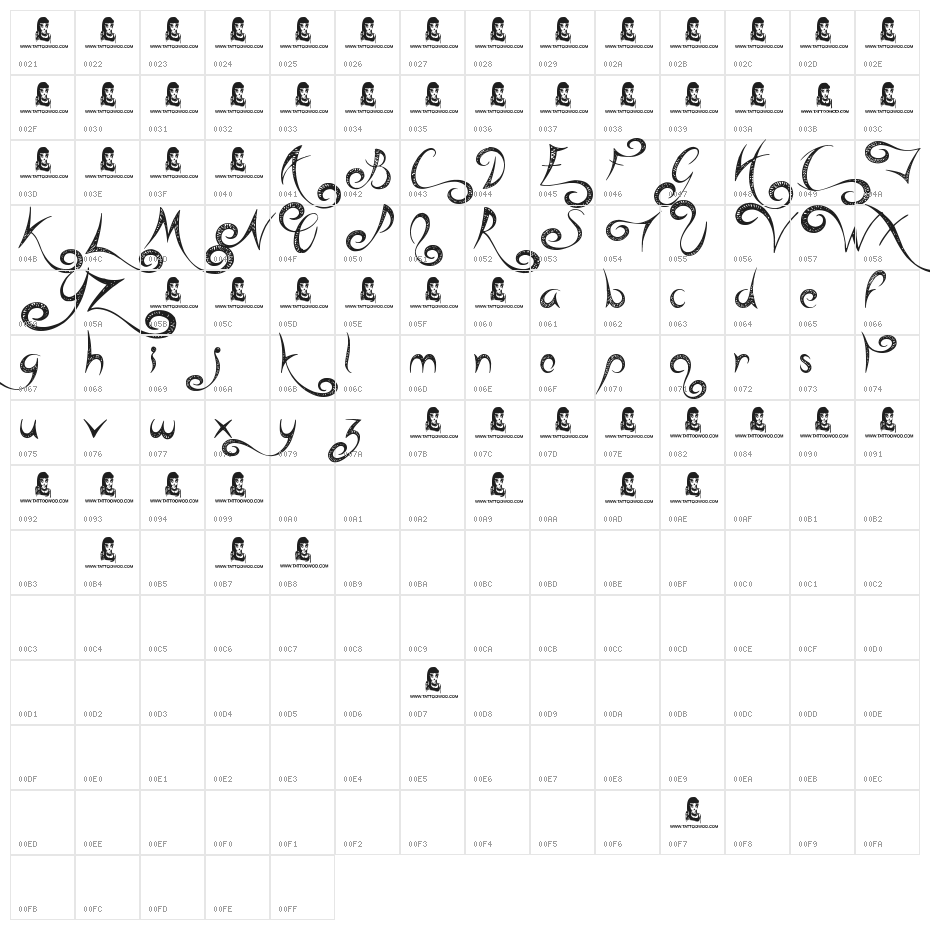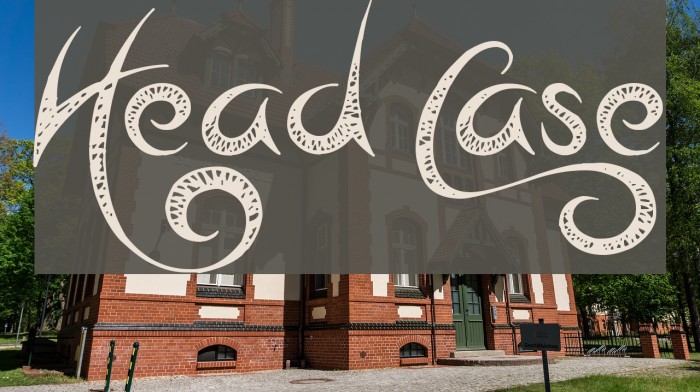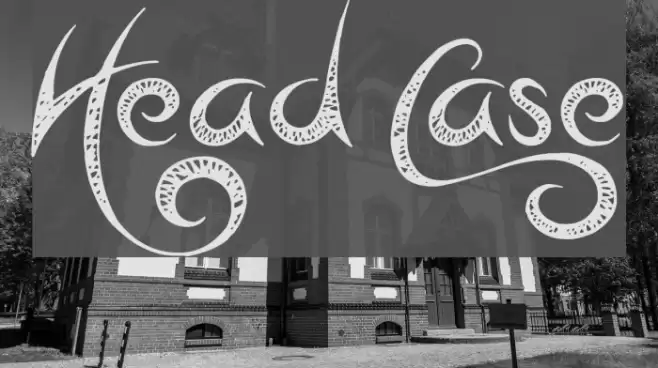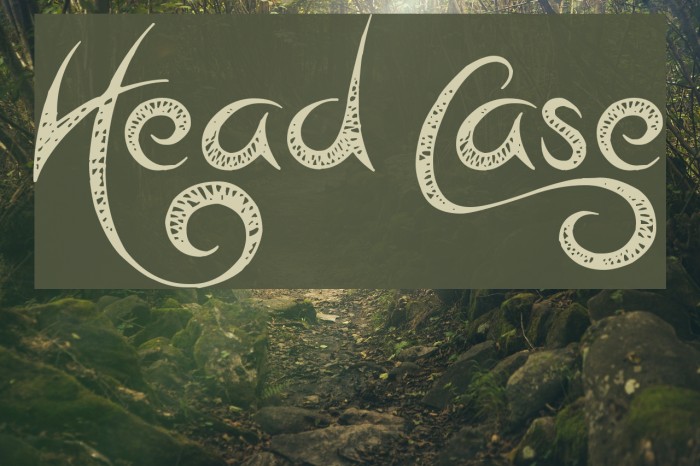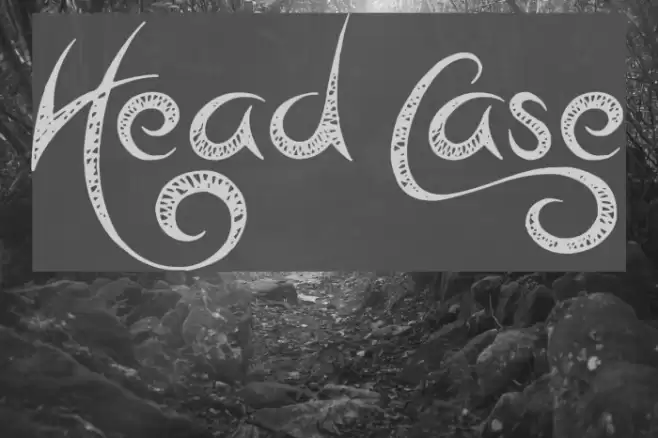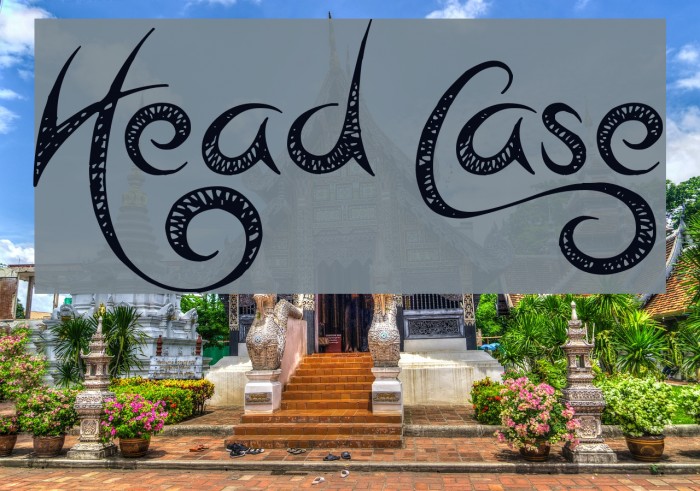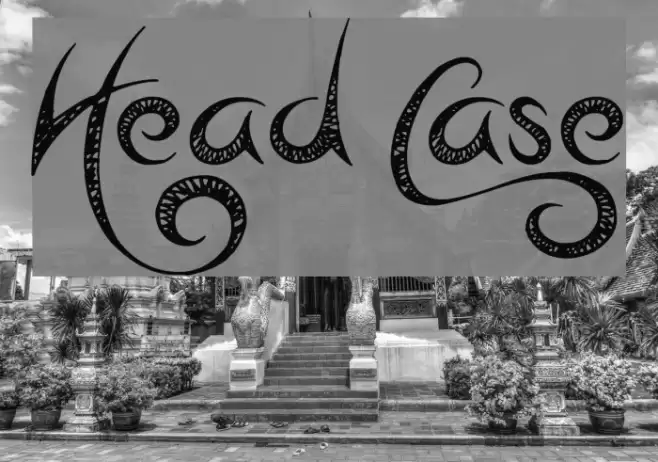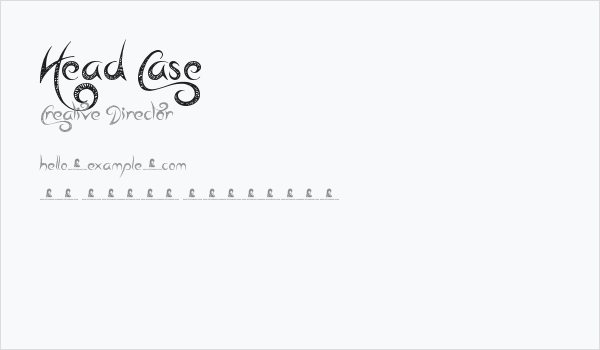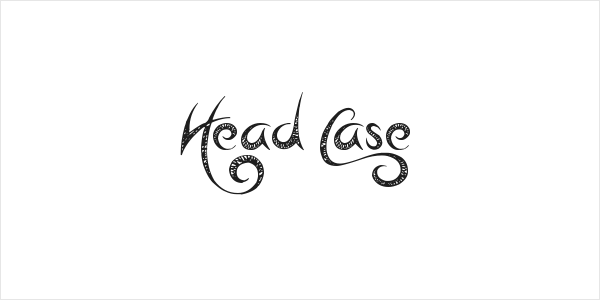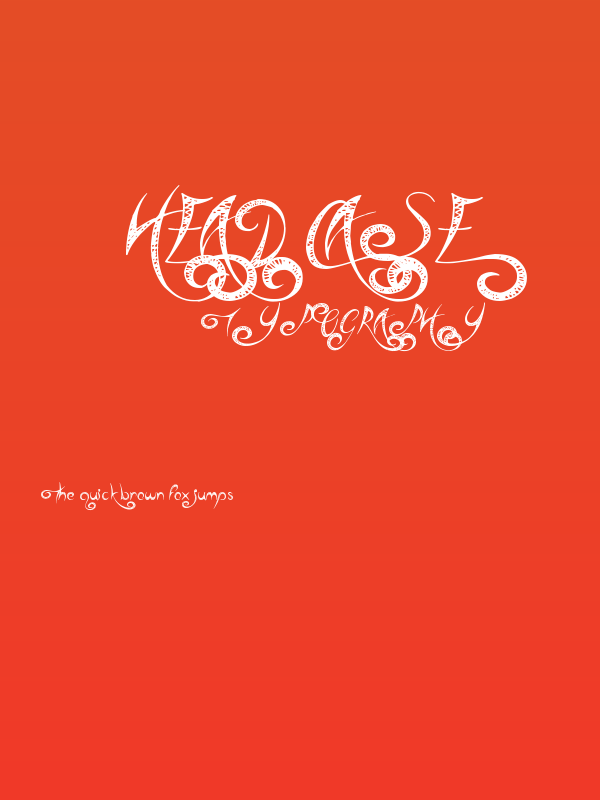
Head Case Font
Head Case Description
This font features an intricate and decorative style with swirling, ornate embellishments on each character. The uppercase and lowercase letters are highly stylized, with exaggerated curves and loops that give a whimsical and artistic feel. The characters are filled with patterns, adding texture and depth. This font is highly decorative, making it suitable for creative and expressive projects where a bold statement is desired.
| Use Case | Logos, Artistic projects, Posters |
| Proposed Projects | Ideal for tattoo designs, artistic posters, album covers, and creative branding projects. |